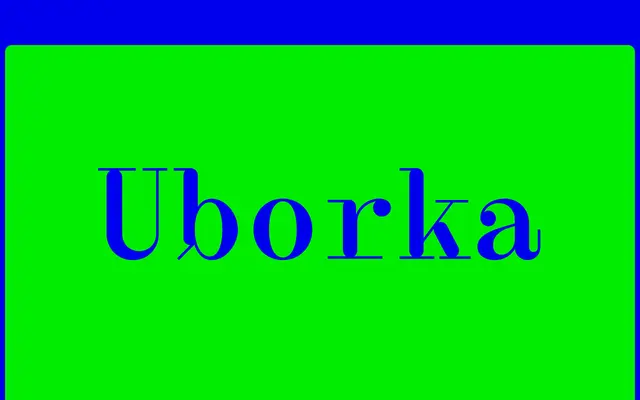
Uborka Mono
A high-contrast monospace serif by Adam Katyi, derived from Amen Display Medium and built to a strict 10-pitch specification.
Rounded stem beginnings and endings give this single-weight monospace serif a distinctly calligraphic texture, a direct result of translating the thick strokes of Amen Display Medium through a pointed-pen logic. Its fixed 10-pitch spacing means ten characters at 12pt measure exactly one inch wide, making it interchangeable with Hungarumlaut's other 10-pitch families, Menoe Grotesque and the forthcoming Ebuk Mono. Language coverage spans Basic Latin through to Turkish and several Central and Eastern European scripts.
A monospaced typeface with high-contrast serifs derived from Amen Display Medium, with rounded stem terminals drawn from pointed-pen technique. Classified as mono due to its fixed 10-pitch spacing and explicit monospace design intent.